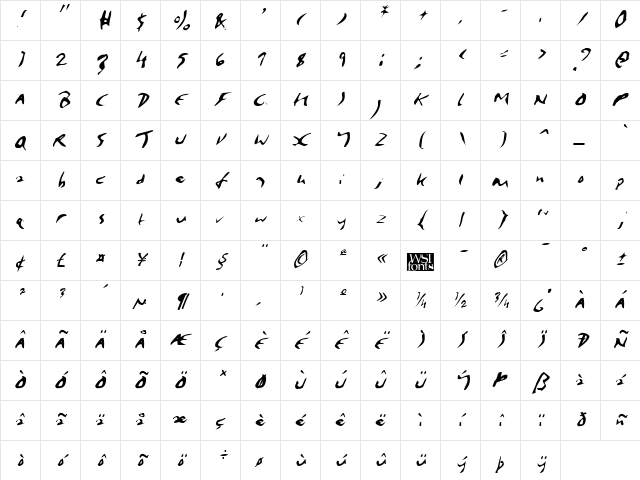
Complete Elmore kursiv glyph index. Displaying only characters natively supported by Elmore kursiv font.
Elmore is a composed and adaptable typeface that performs quietly and consistently across a wide range of design contexts. The slanted form adds forward momentum and visual energy.